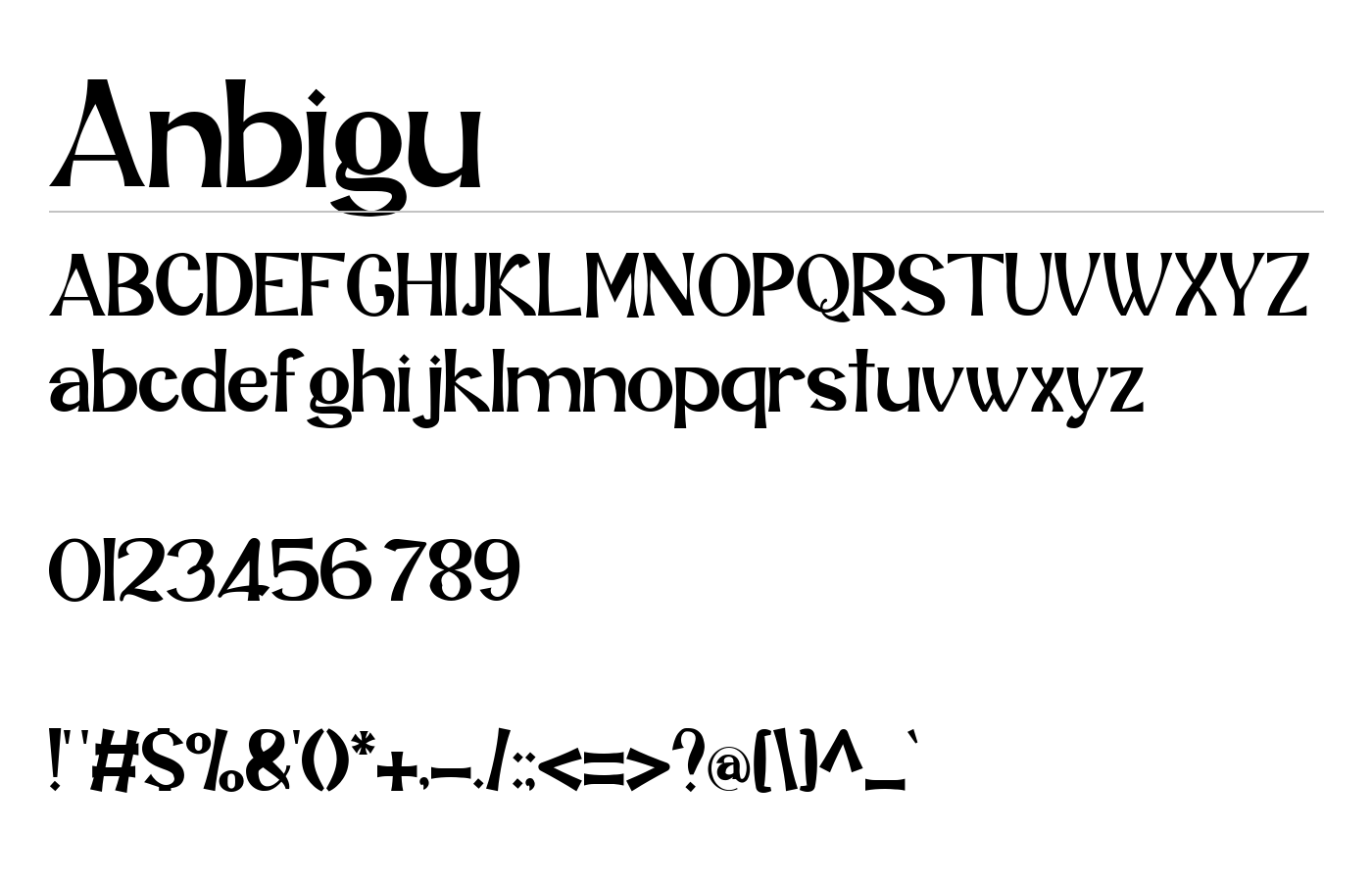
Anbigu is a quirky serif font with a distinctive, slightly irregular design that mixes traditional serif elements with playful, sharp angles and varying stroke widths. It offers a medium weight and a moderate x-height, making it eye-catching yet readable, ideal for creative headlines, logos, and unique branding that seeks to stand out with a touch of vintage charm and artistic flair. This font works well in artistic or editorial projects where personality and a handcrafted feel are desired.
Anbigu Font
About Anbigu Font